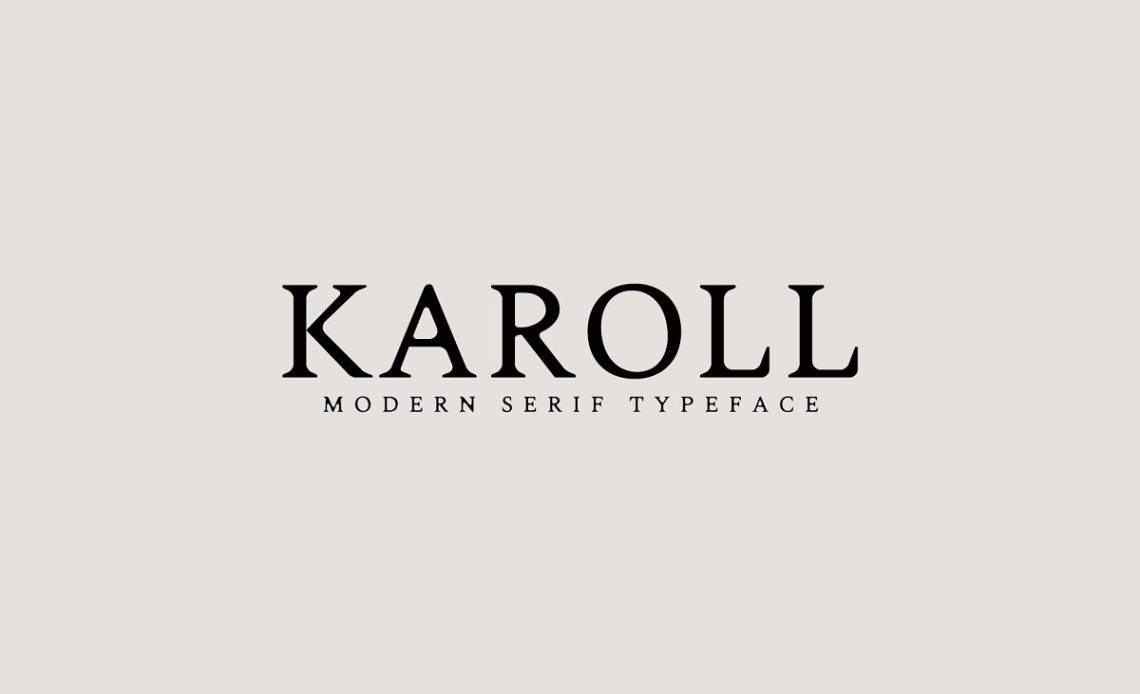
Introducing Karoll Modern Serif Font Family, a vintage-inspired typeface that exudes sophistication and elegance. With its sleek lines and timeless appeal, this font is perfect for all your creative design needs.
Karoll boasts an extensive range of features that make it a versatile choice for any project. It includes all basic glyphs, as well as non-English characters, ensuring that your message can reach a global audience.
What sets Karoll apart is its ability to beautifully complement other font styles. Whether you're pairing it with a display, signature, sans serif, script, or handwriting font, Karoll effortlessly adds a touch of class and refinement.
This font is a must-have for logo designs, headlines, posters, quotes, advertising materials, magazine headings, web layouts, invitations, packaging designs, books, branding, and so much more. The possibilities are endless with Karoll by your side.
But that's not all! When you purchase Karoll, you also gain access to three font weights: Light, Round, and Bold. This allows you to experiment and find the perfect weight for your specific project.
With its uppercase and lowercase multilingual letters, numbers, punctuation, and extensive character support, Karoll leaves no stone unturned. From the traditional ABCs to special characters and accents, this font has got you covered.